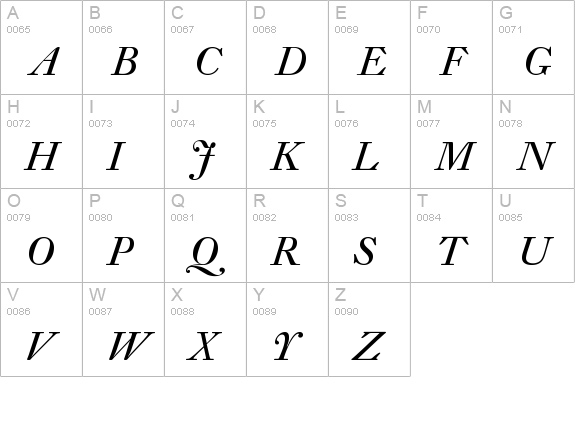
DTLFleischmannD-Italic is a distinctive, italic variant in the DTLFleischmannD typeface family \xE2\x80\x94 well suited to design and typography projects.
The DTLFleischmannD-Italic font is a beautifully crafted typeface that exudes elegance and sophistication. Its slanted italic style adds a touch of flair to any design project, making it perfect for use in branding, advertising, and editorial layouts. The graceful curves and delicate serifs of this font make it a timeless choice for conveying a sense of refinement and professionalism. Best of all, the DTLFleischmannD-Italic font is free to download at FontsMarket.com. This means that you can easily access this stunning typeface for all your creative endeavors without having to worry about any costs. Whether you're a designer, a writer, or a business owner looking to elevate your brand, the DTLFleischmannD-Italic font offers a versatile and stylish solution that is just a click away. Download it today and see the difference it can make in your projects!